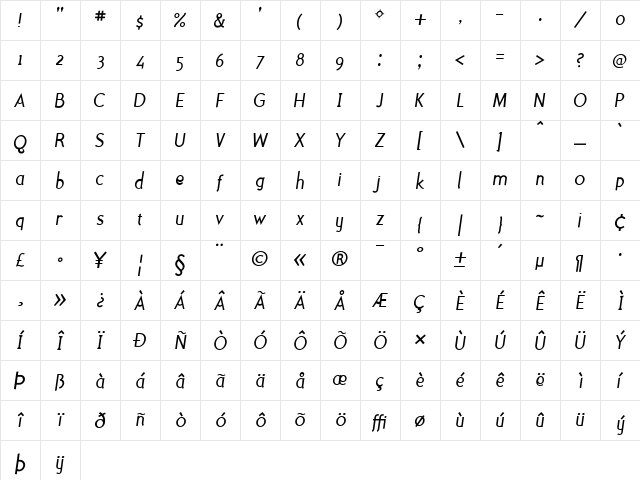
Polymer Book Italic
Design Context for Polymer Typeface
Polymer takes a measured approach to typography — its balanced proportions and neutral character make it a reliable workhorse for both digital and print work. The slanted form adds forward momentum and visual energy.
Pro Tip: Use Polymer for emphasis, pull quotes, and subheadings where its slanted energy can add rhythm to the layout.